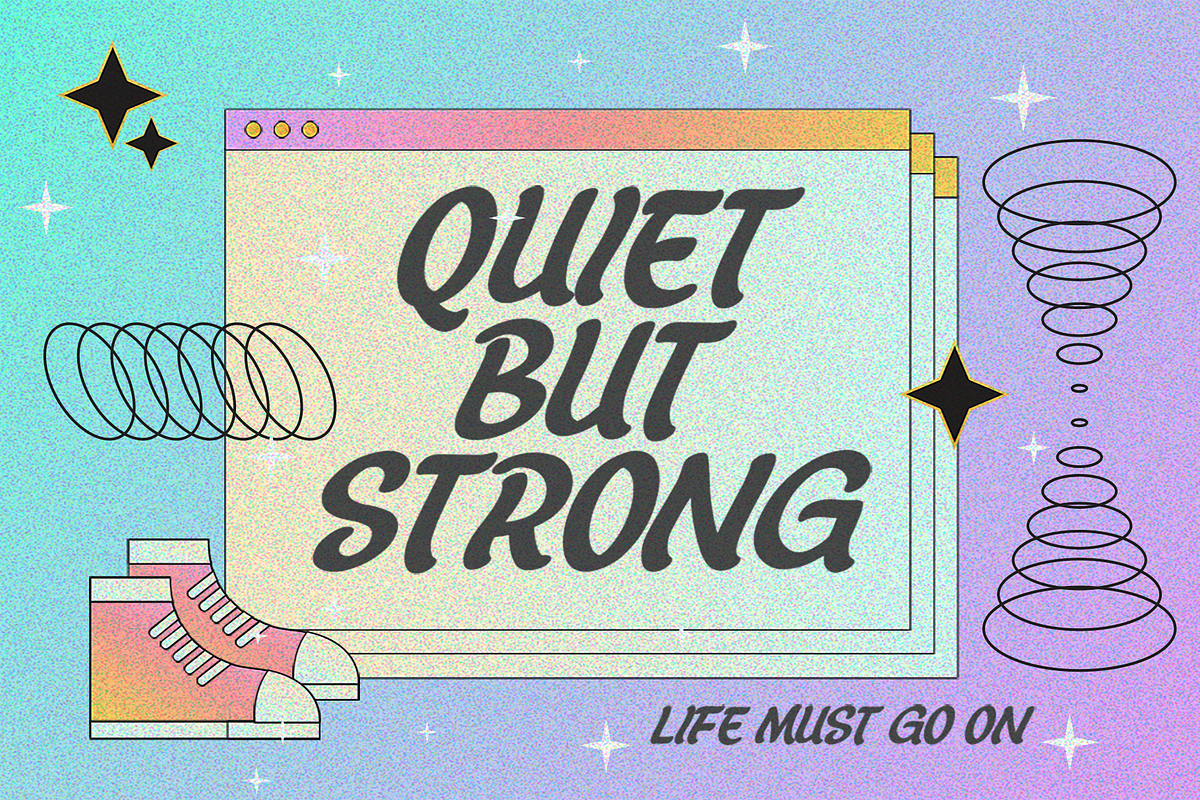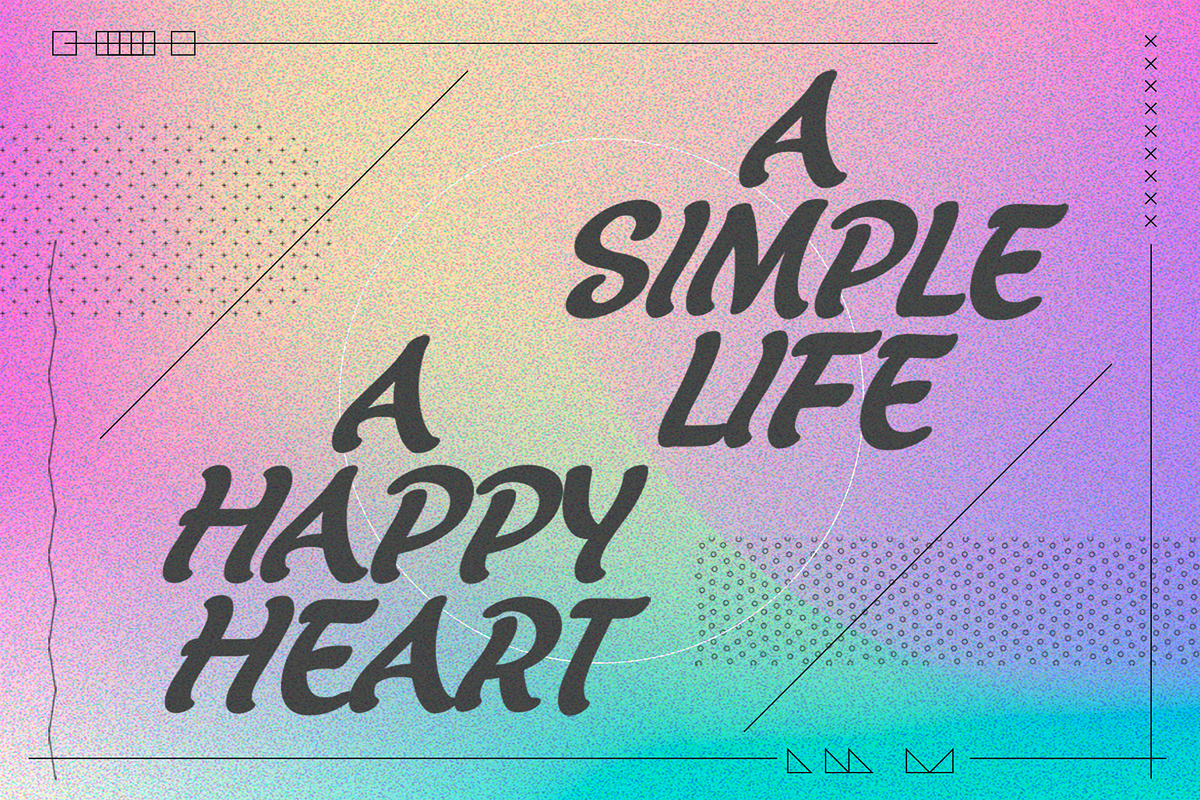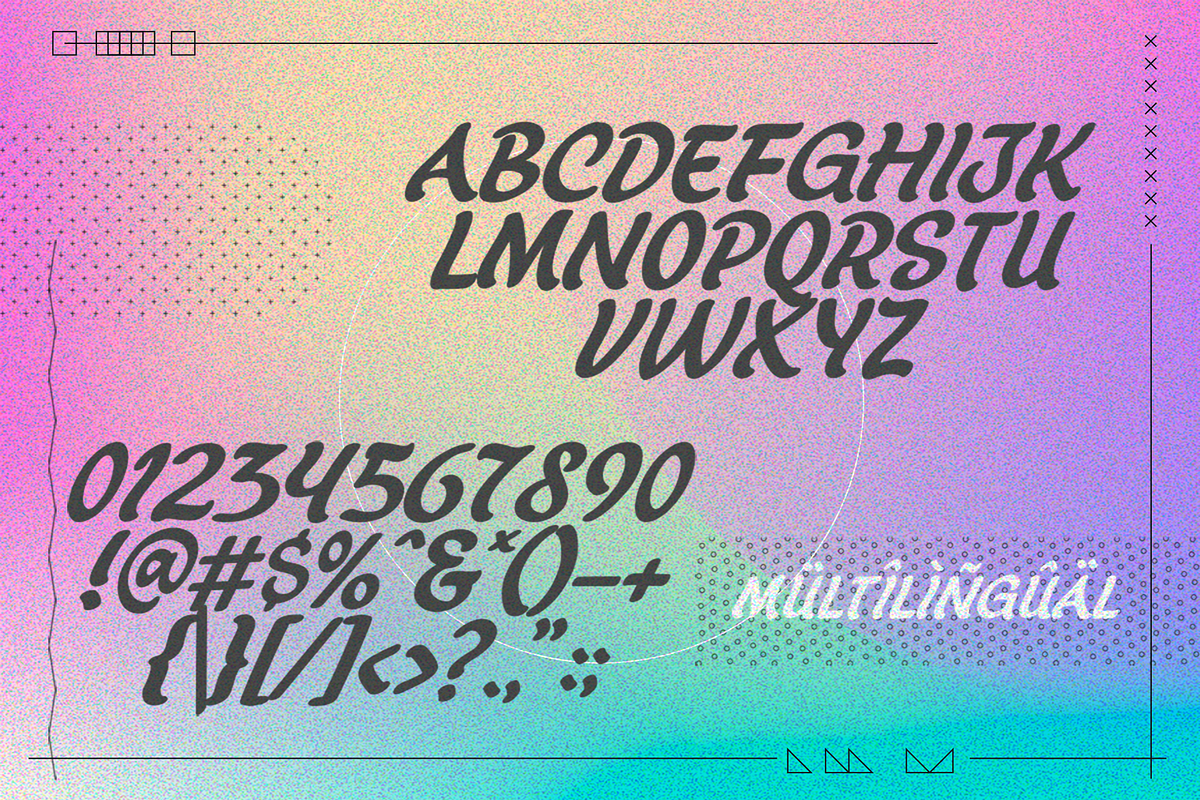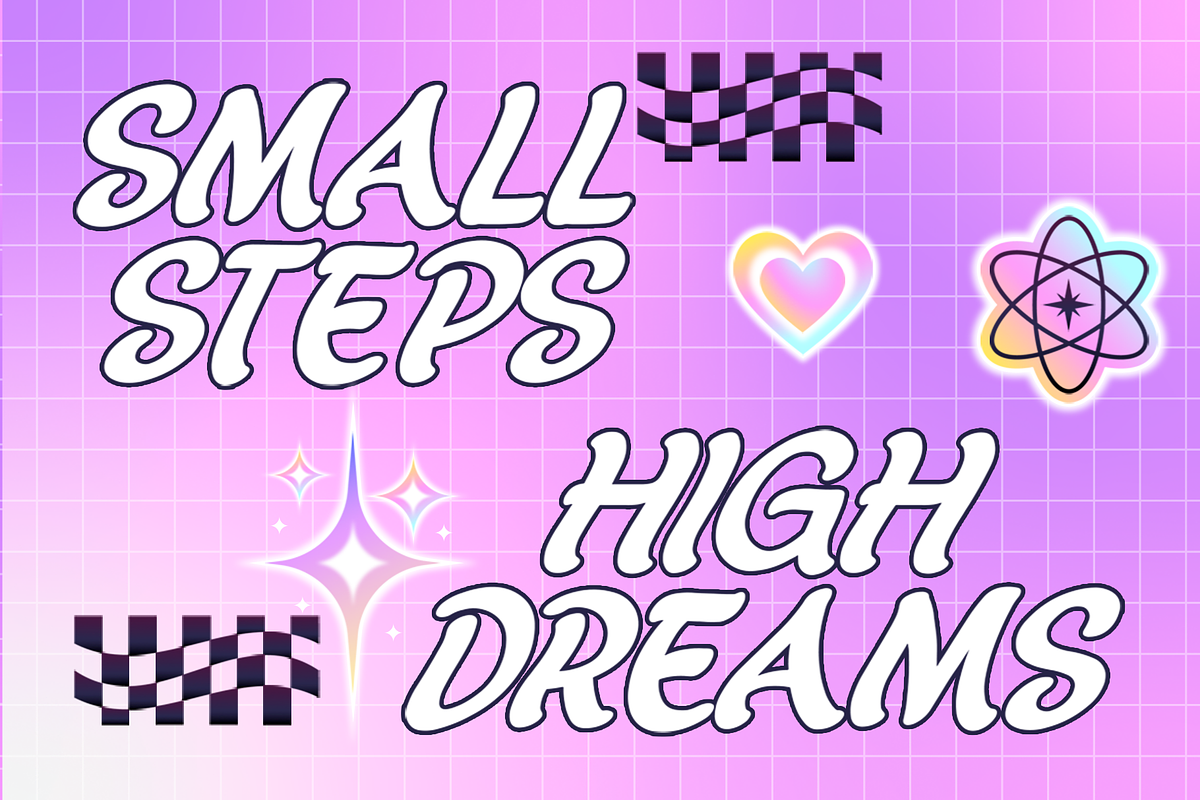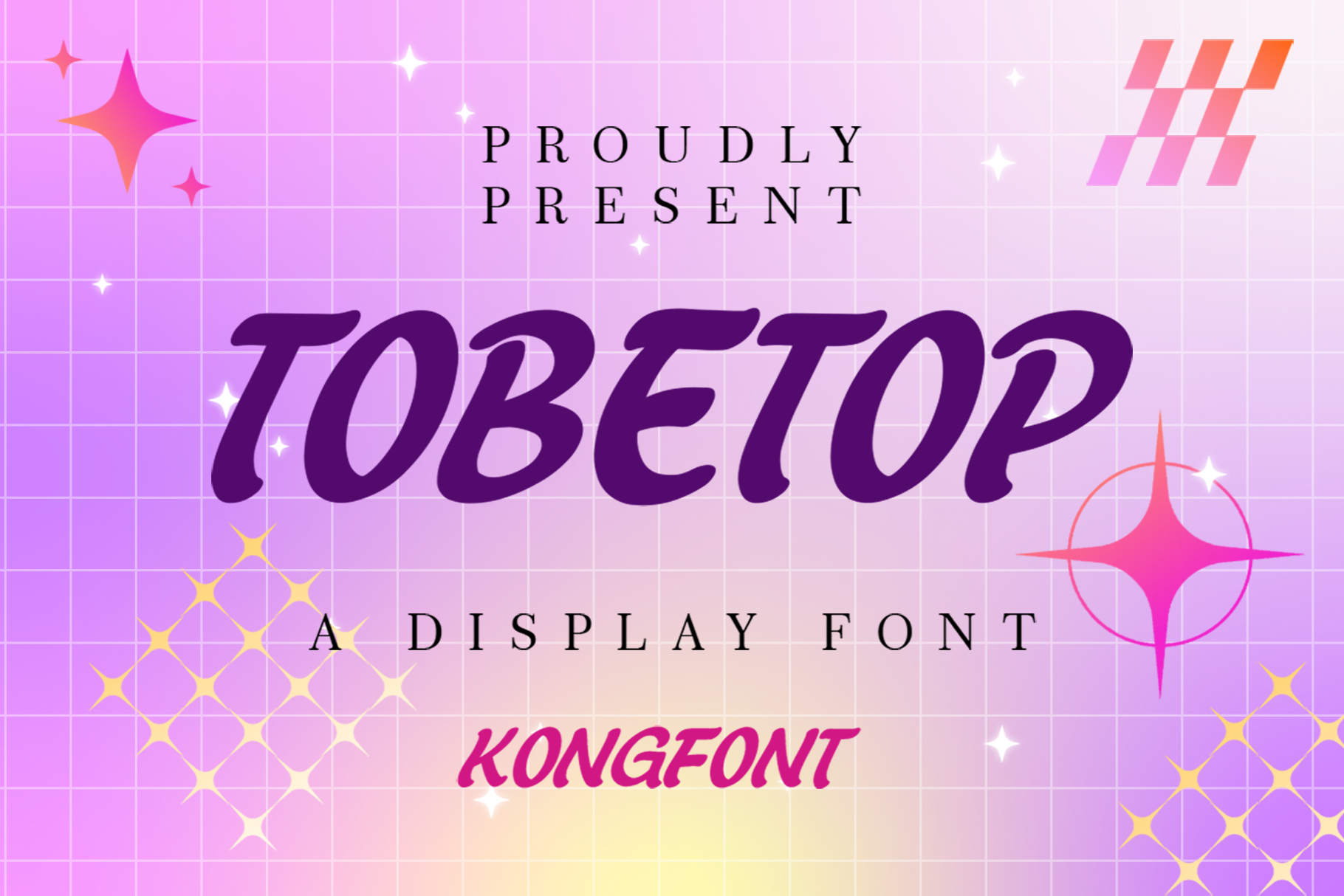
Tobetop - A Display Font
Elevate your designs with Tobetop, a bold and modern display font designed to make an impact. With its sharp, clean lines and contemporary style, this typeface is perfect for attention-grabbing headlines, posters, branding, and social media content.
Tobetop stands out with its sleek design and confident structure, ensuring your projects leave a lasting impression. Its versatility allows it to be used in a wide range of creative applications, from digital to print designs.
Complete with a full character set and multilingual support, Tobetop is your go-to font for bold and stylish typography.